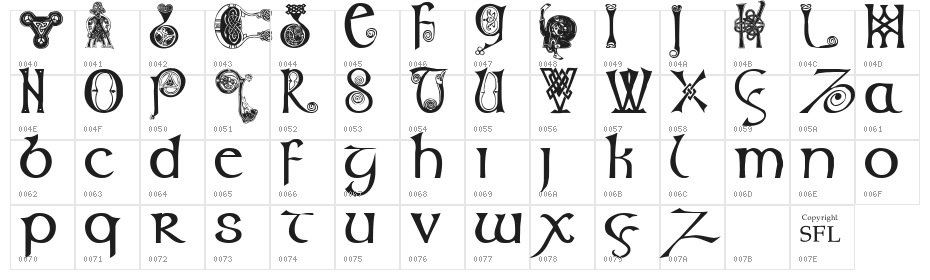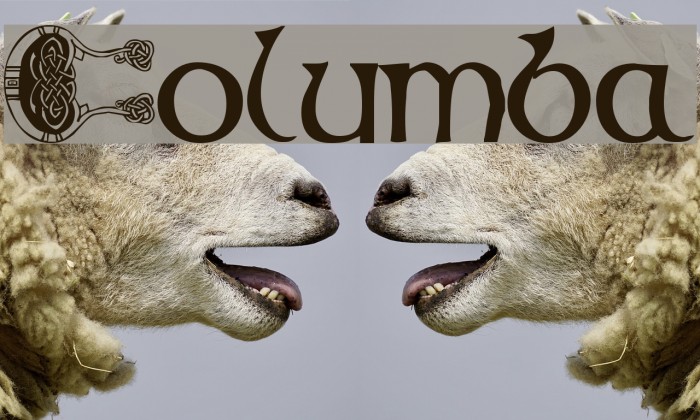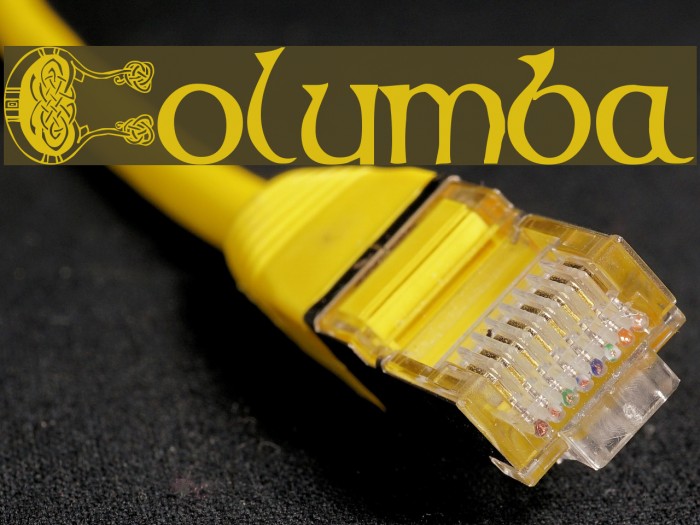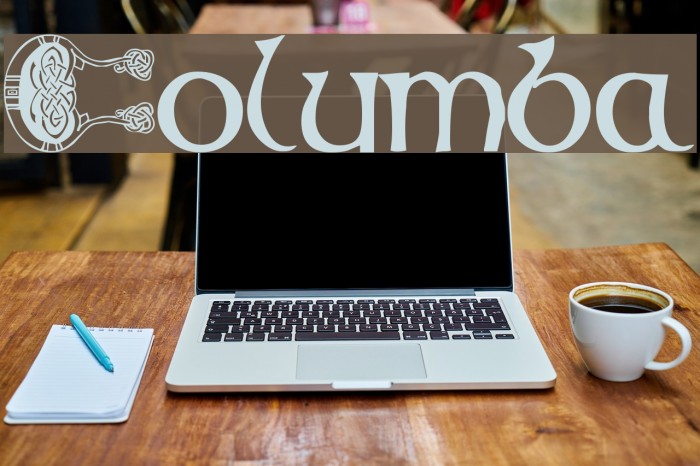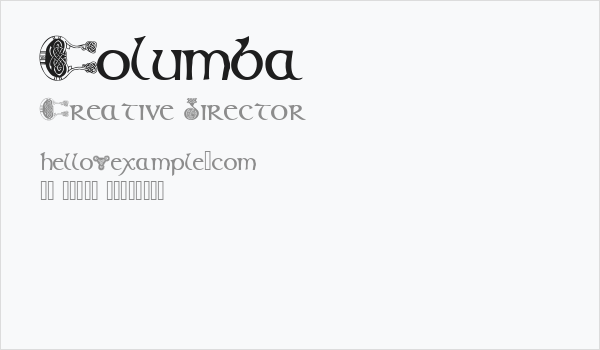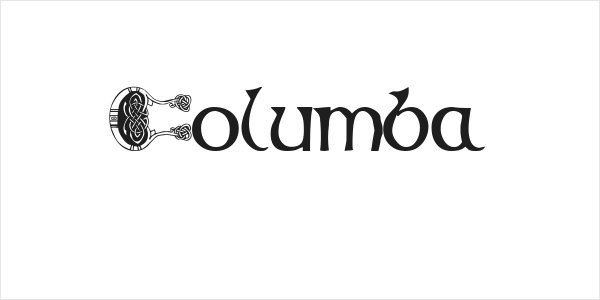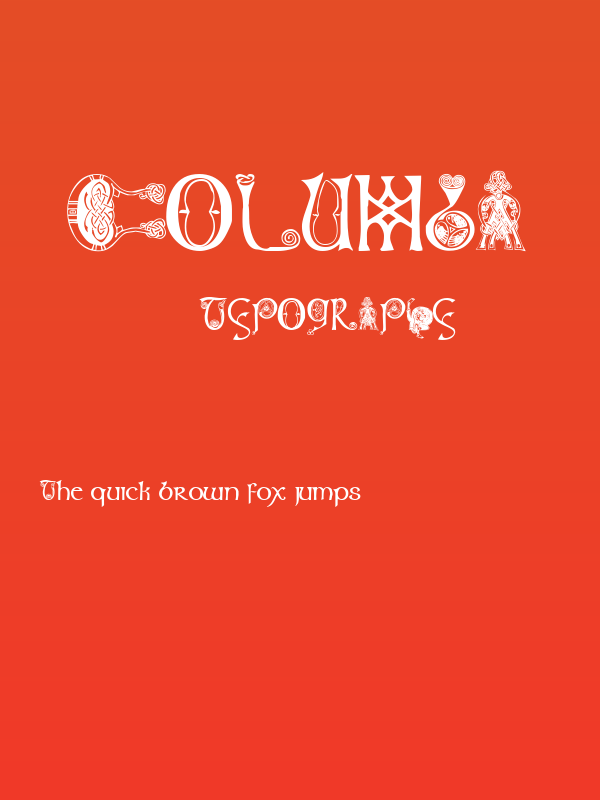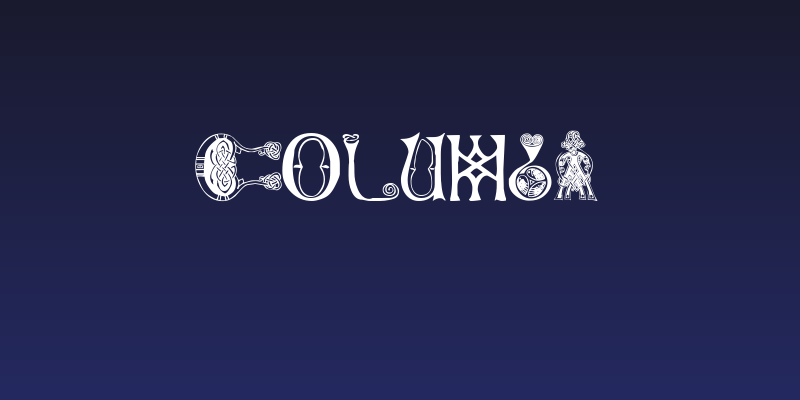
Columba Font
This font is a highly decorative and intricate typeface that draws inspiration from medieval and Celtic art. The uppercase letters feature elaborate designs with intertwining patterns and ornamental details, reminiscent of illuminated manuscripts. The lowercase letters maintain a more traditional serif style but still carry a unique flair with subtle curves and angles. The numerals and special characters continue the theme with bold, artistic strokes. This font is ideal for projects that require a historical or fantasy aesthetic, offering a sense of mystery and elegance.
Overall StyleVintage
Use CaseLogos, Headlines, Decorative text
Proposed ProjectsIdeal for fantasy book covers, historical event posters, themed invitations, and artistic branding.